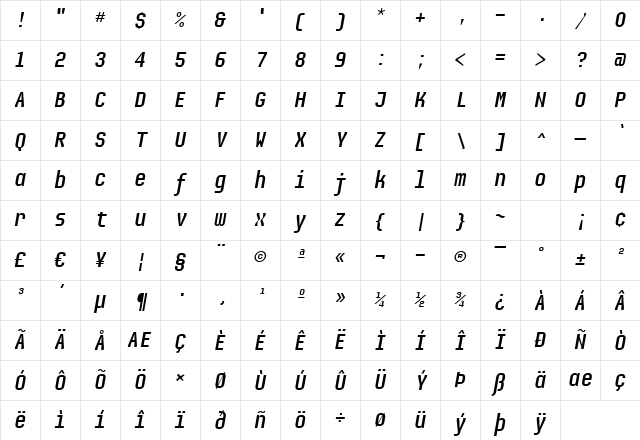
Audimat Mono uses fixed-width spacing throughout, giving it the structured, systematic character associated with coding environments and technical documentation. The slanted form adds forward momentum and visual energy.
Pro Tip: Use Audimat Mono with slightly increased line-height for extended reading - fixed-width spacing can feel dense in longer passages without extra breathing room.